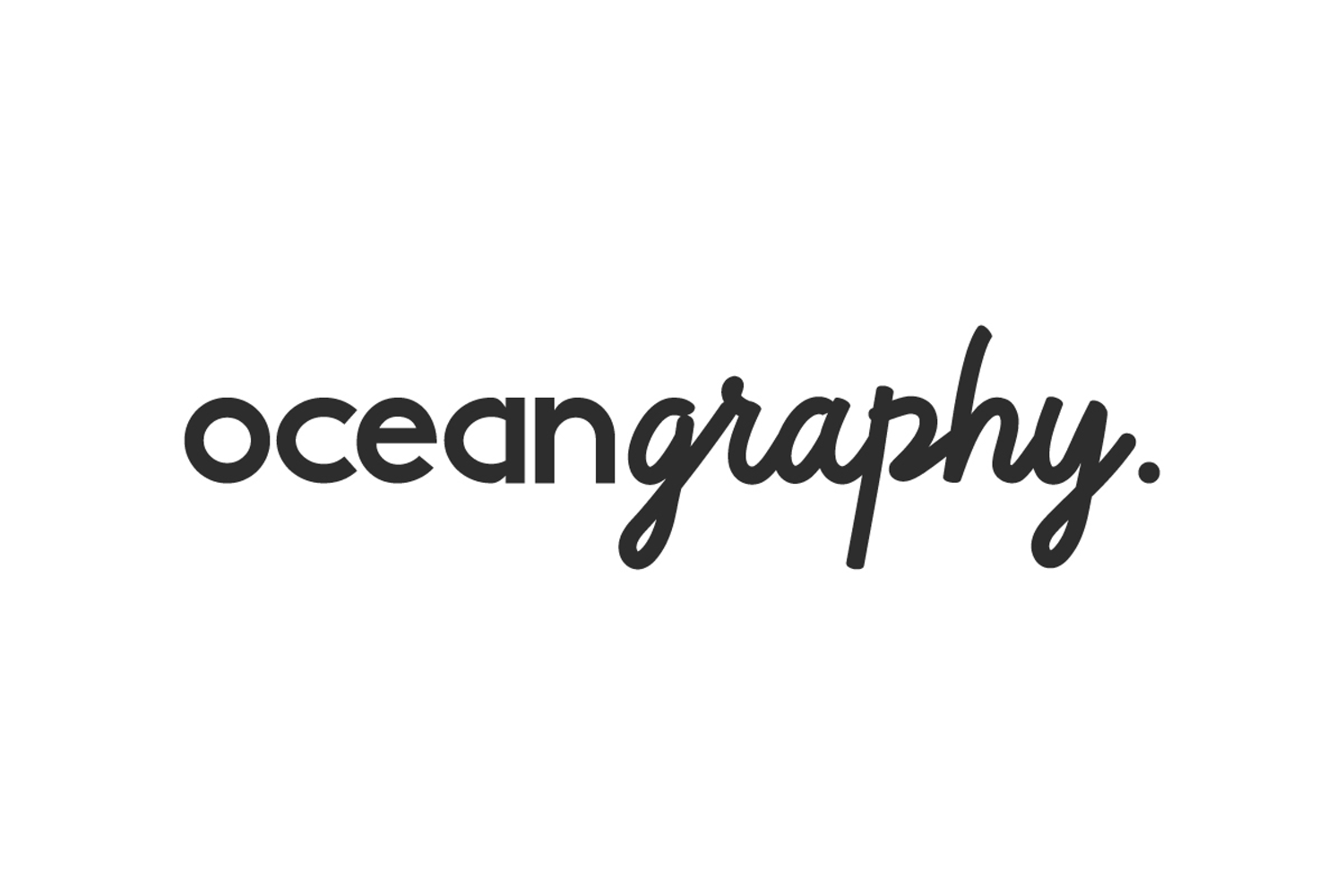
Ocean Graphy Font is a uniquely stylish handcrafted font duo with two eye-catchy styles. All characters appear in lower case letters with a combination of rounded basic shapes with cursive letters into one font. Whether used for apps, blogs, body of text, brochure, card designs, headers, logos, posters, quotes, stationery, stickers, websites, or others.
Ocean Graphy Font has a complete set of uppercase and lowercase characters in a display that looks all lowercase but has different styles. Numbers, Punctuation, Symbols and Ligature. clean looks and calm as the deep sea. Making it a perfect choice for projects that require a touch of aquatic inspiration. This is suitable for event organizers, crafts, marine festivals, music, skincare, etc.